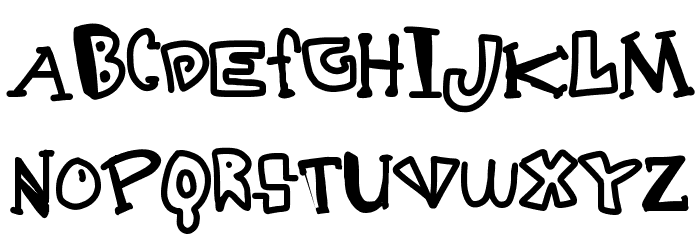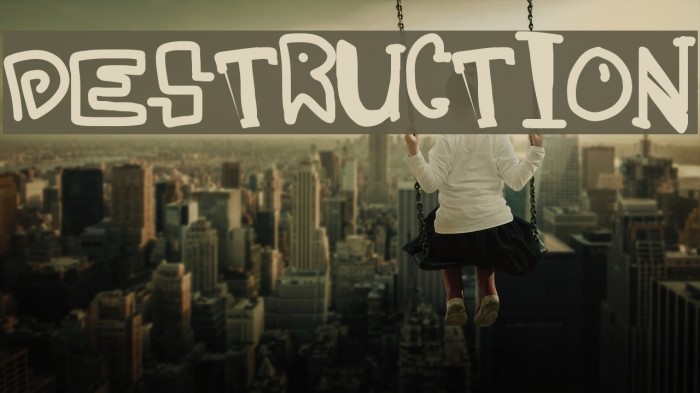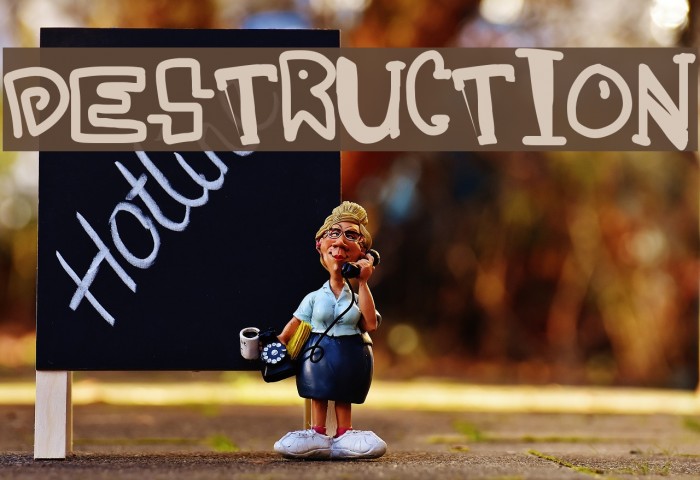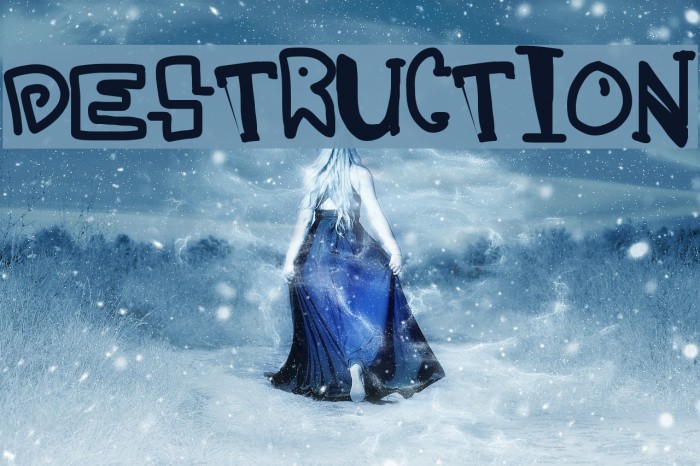
destruction Font
This font features a playful and quirky design with exaggerated curves and angles, giving it a whimsical and cartoonish appearance. The uppercase letters are bold and dynamic, with varying stroke widths that add to the lively feel. The lowercase letters maintain the same playful style, with unique character shapes that stand out. The numbers and special characters follow the same design principles, ensuring consistency throughout. This font's distinct style makes it suitable for creative and informal projects.
A playful and quirky font with exaggerated curves and angles.
- Proposed Projects: Ideal for children's books, comic strips, playful branding, and creative posters.
- Overall Style: Whimsical